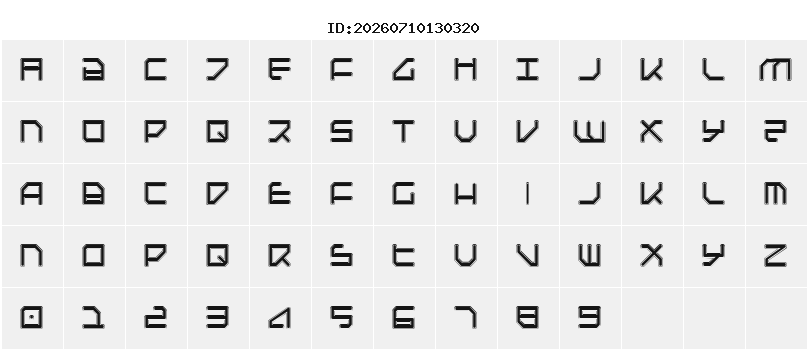
• Font Name: Federapolis College
• Full Font Name: Federapolis College
About Federapolis College.ttf
Federapolis College.ttf is a modern, elegant sans-serif font designed for ultimate readability and visual harmony. Perfect for branding, headlines, web design, and print materials.